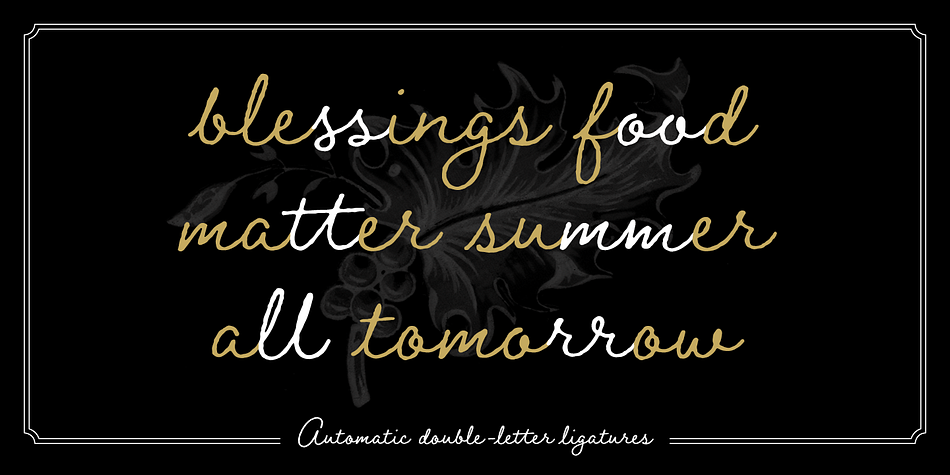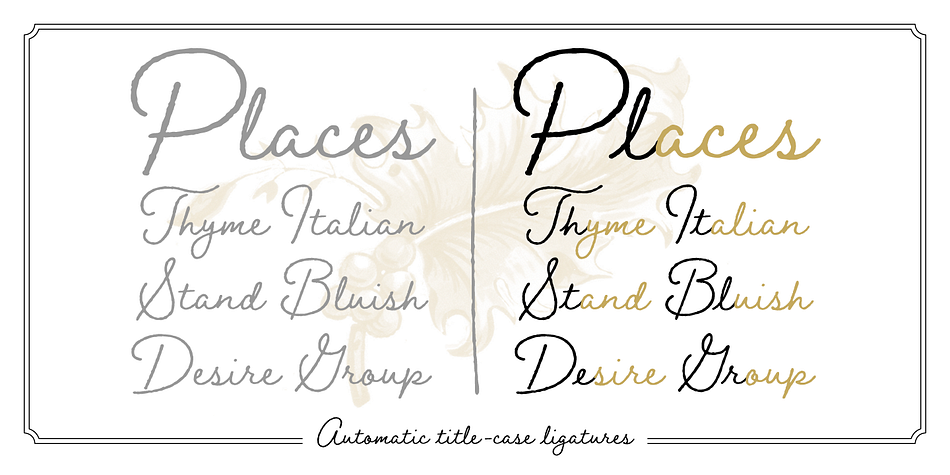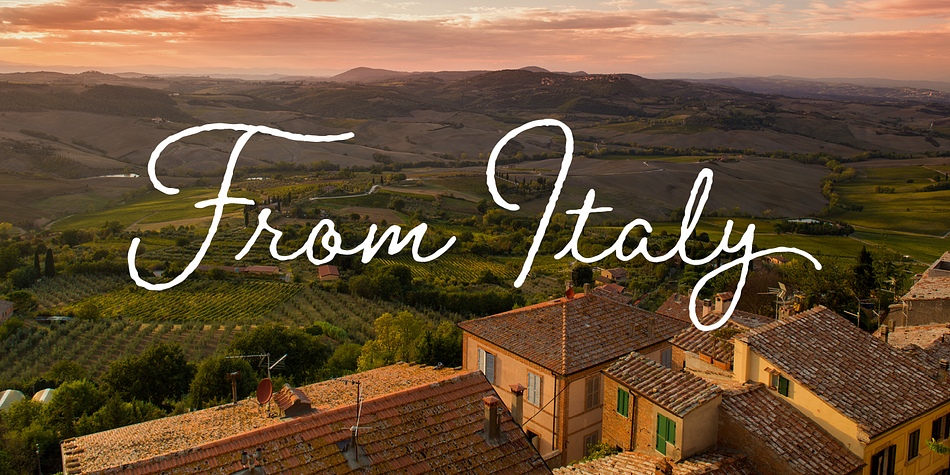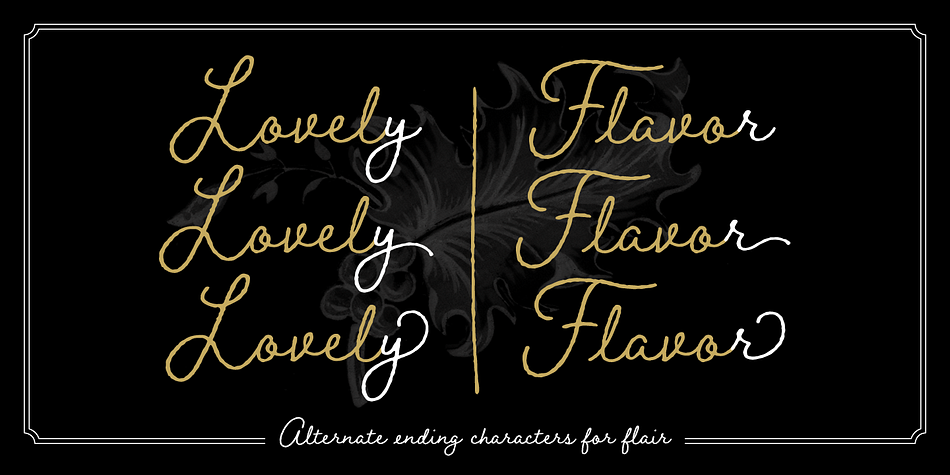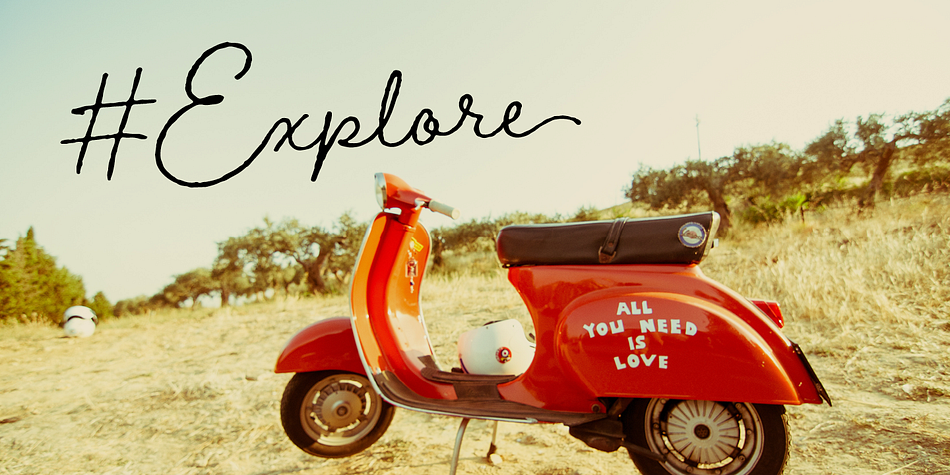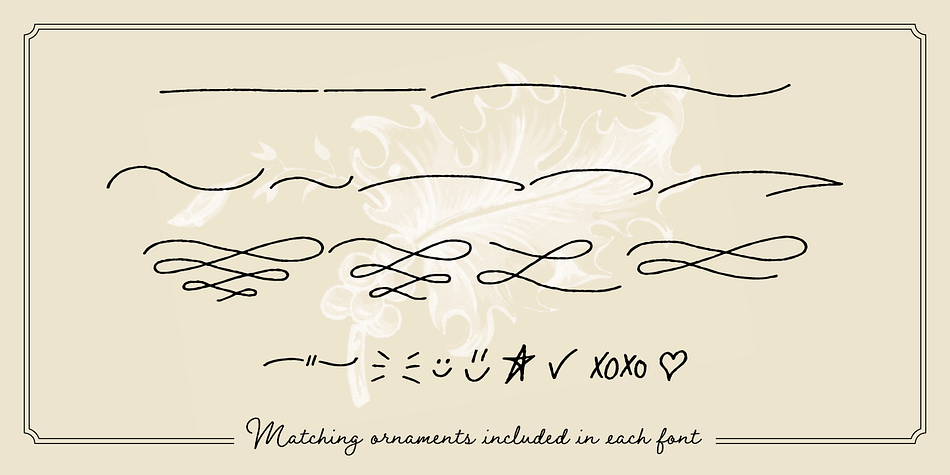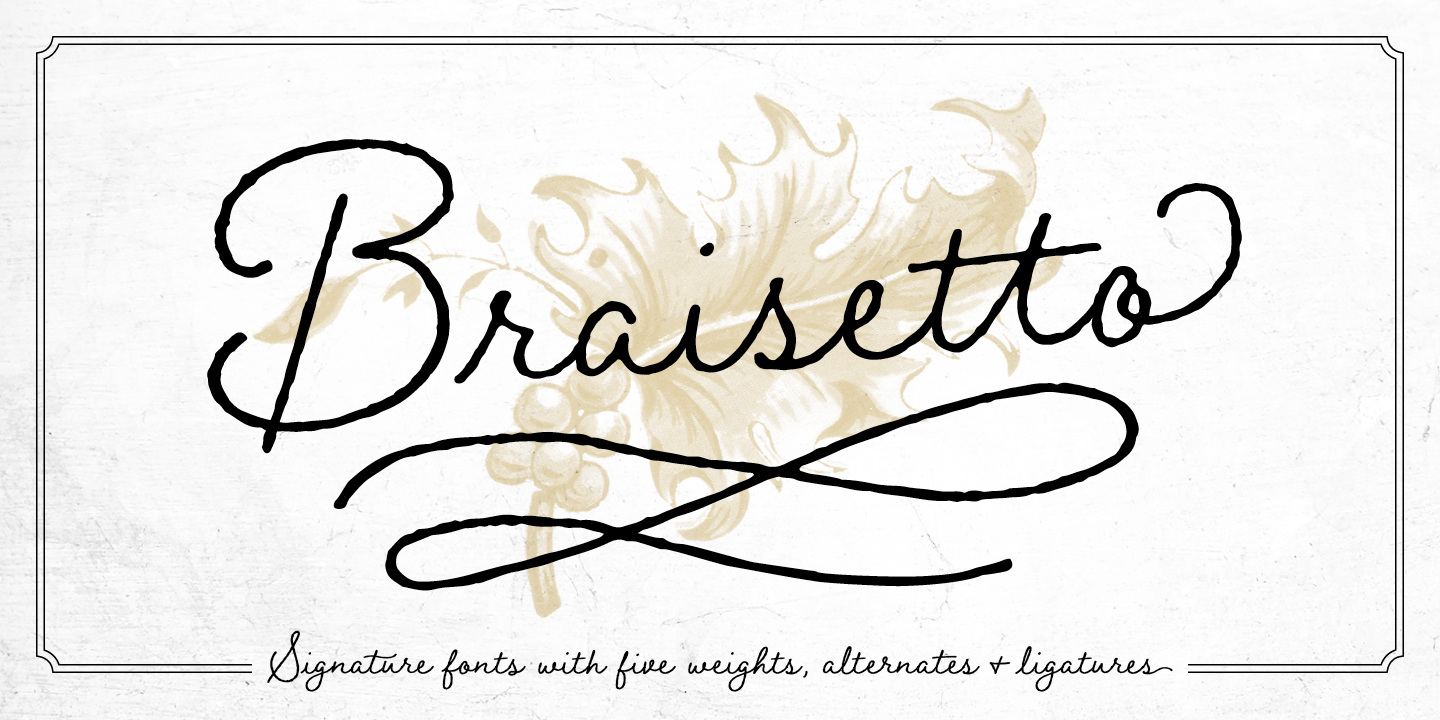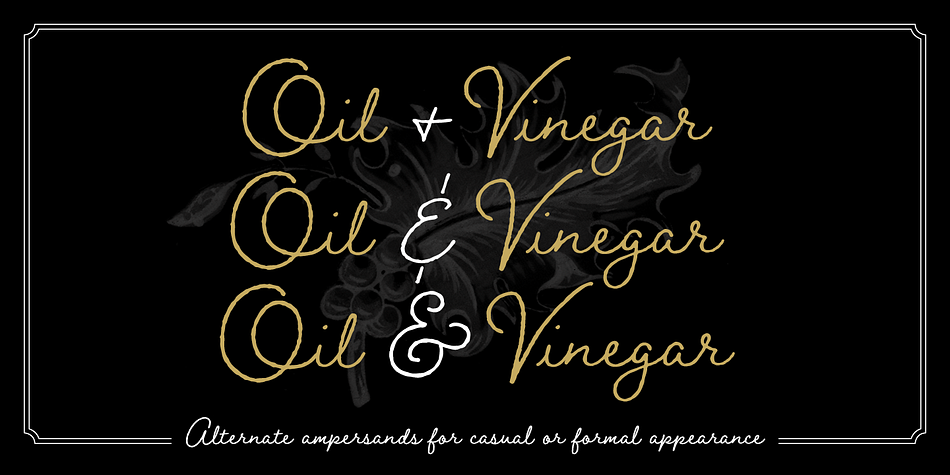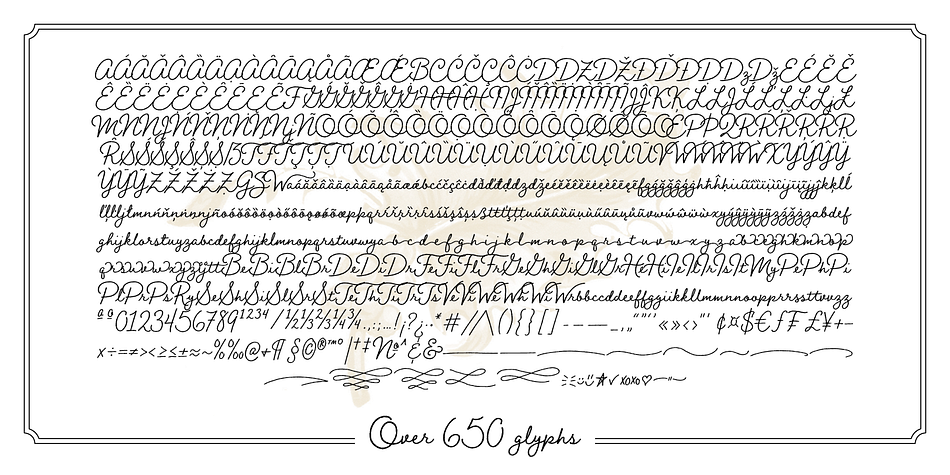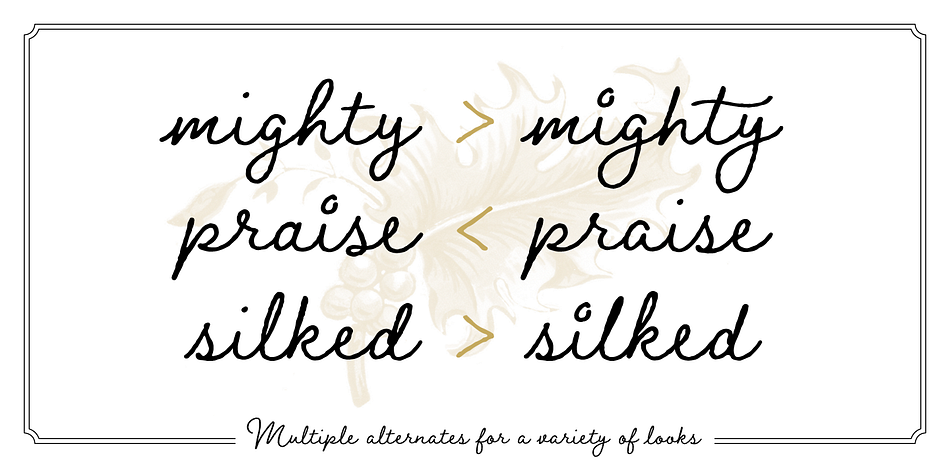
Designed by Adam Ladd, Braisetto is a script font family. This typeface has five styles and was published by Adam Ladd.
Braisetto is a handwritten, signature font family with five weights, multiple alternates, and natural ligatures. Inky and expressive yet readable and functional, this typeface is designed to look personal and be useful in a variety of applications. It can stand strong on its own or be an excellent complement to pair with other typefaces. Choose from any of the five subtle weights to meet the need. Braisetto is great for branding, packaging, display, products, cards, and more.
Features include: multiple stylistic alternates, automatic double-letter ligatures, automatic title-case ligatures, initial stroke alternates, ending flair alternates, five weights, and matching ornaments built into each font.
All alternates, ligatures, and ornaments are PUA-encoded for more accessibility in a variety of programs. This font has extensive Latin language support for Western, Central, and South Eastern European with over 650 glyphs in each font.